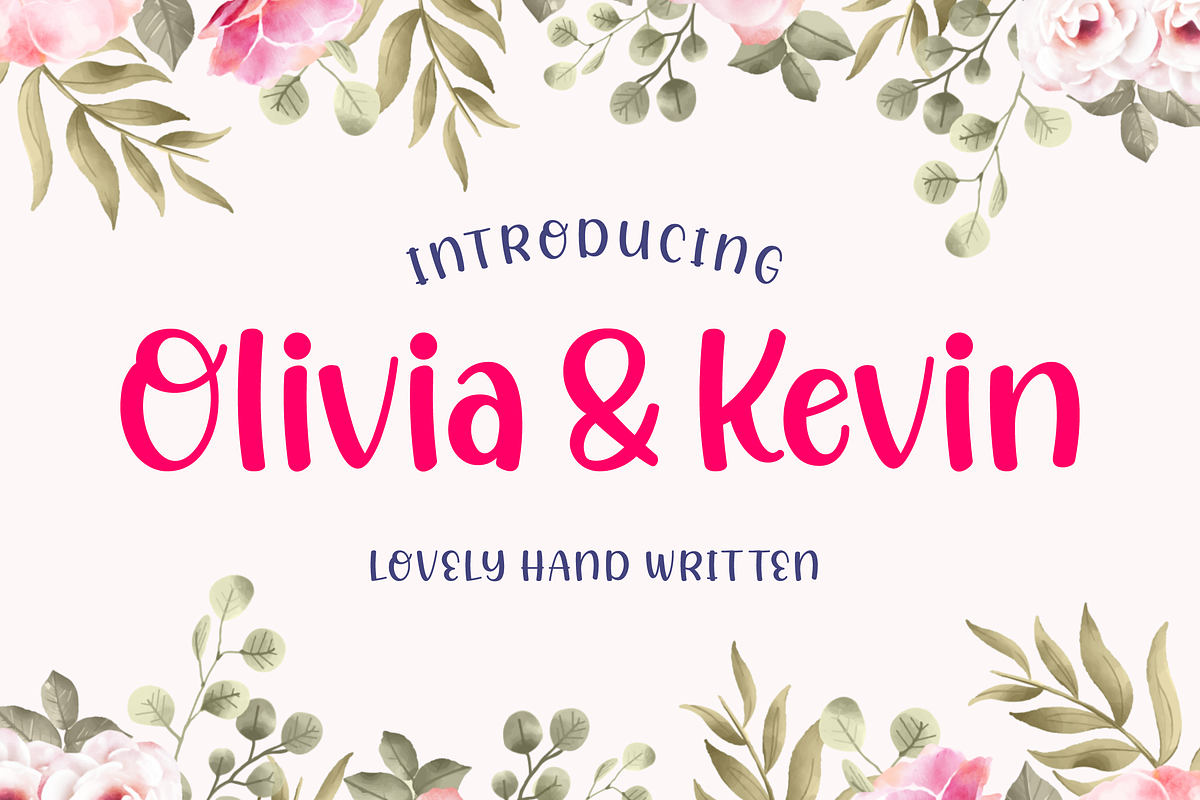
Lovely Handwritten Font Free Download
Lovely Handwritten Font Free Download is a sweet and delicate script typeface that brings a warm, personal touch to your designs. With its soft curves and fluid strokes, this font is ideal for wedding invitations, love notes, feminine branding, greeting cards, and lifestyle content.
Designed to mimic natural handwriting, Lovely strikes a balance between elegance and casual charm. It includes ligatures and alternates for added variety and a custom-lettered appearance that enhances every message.